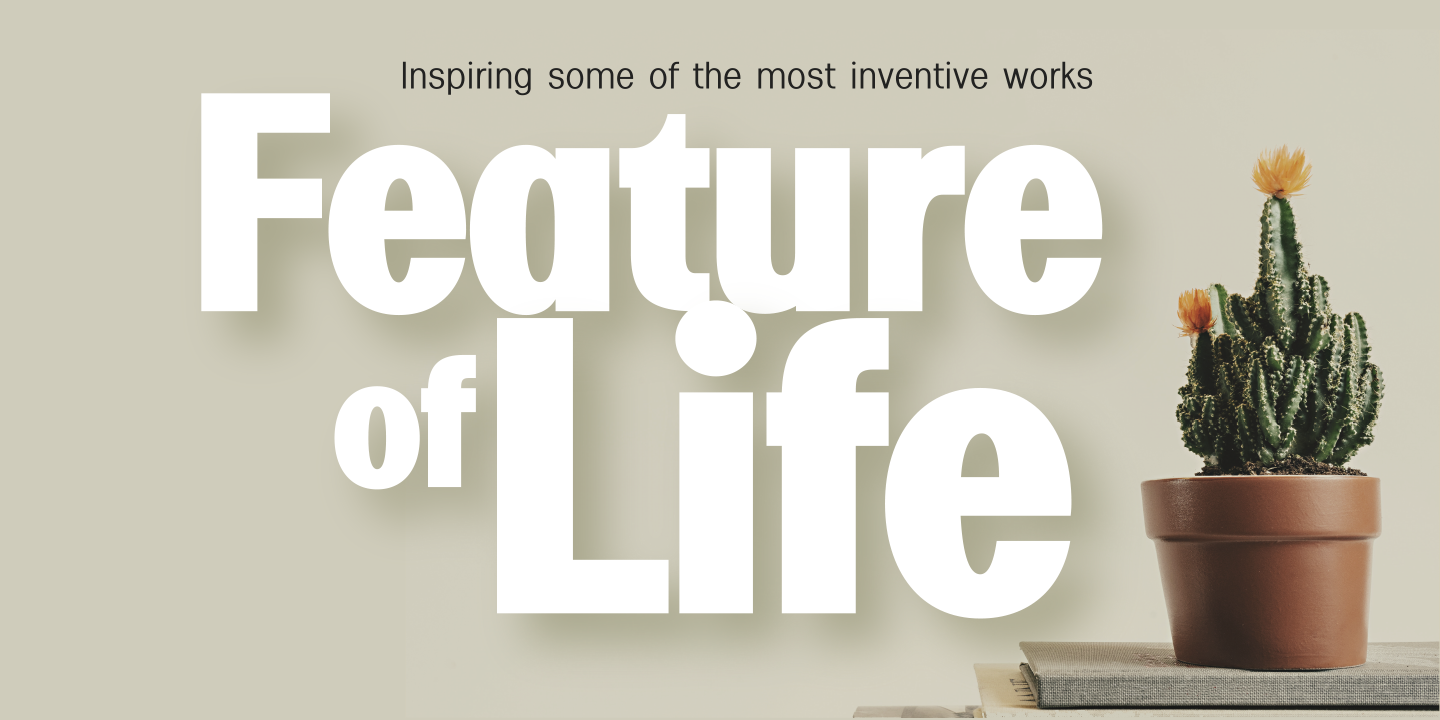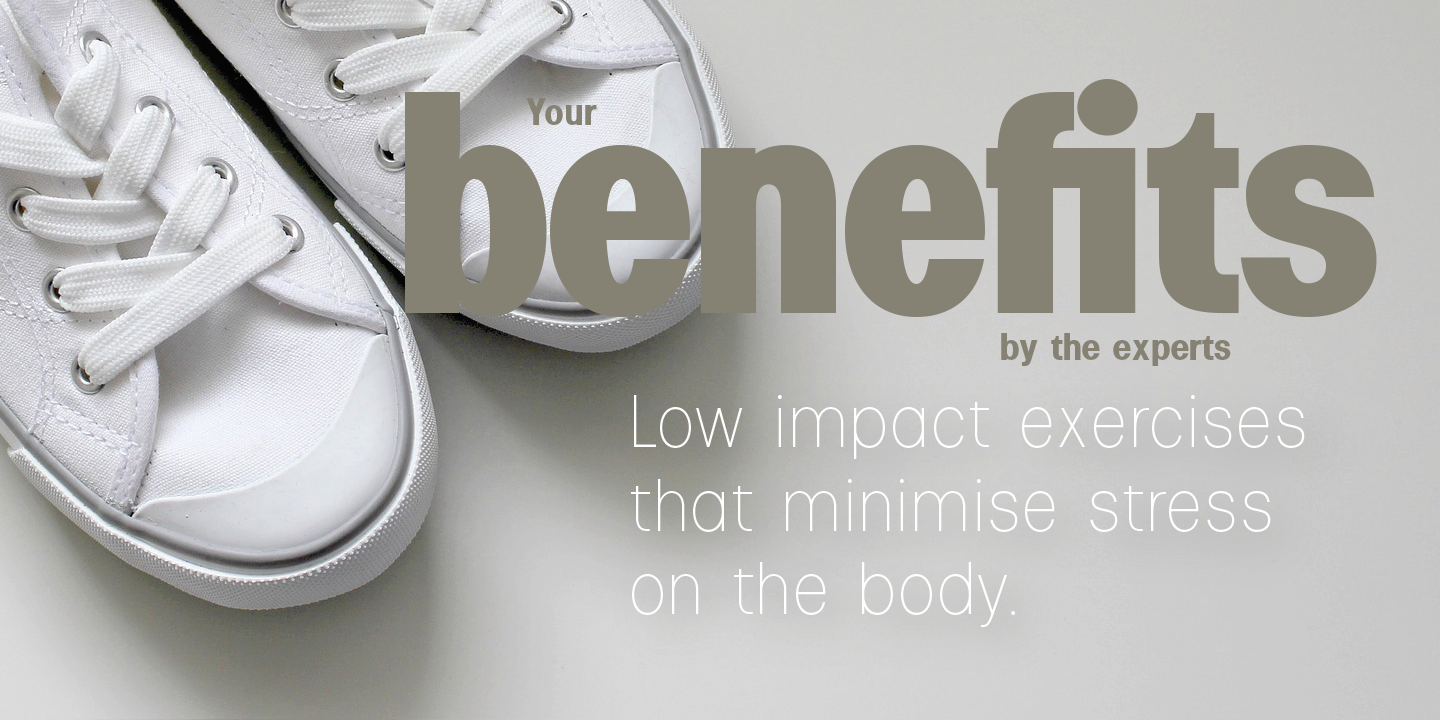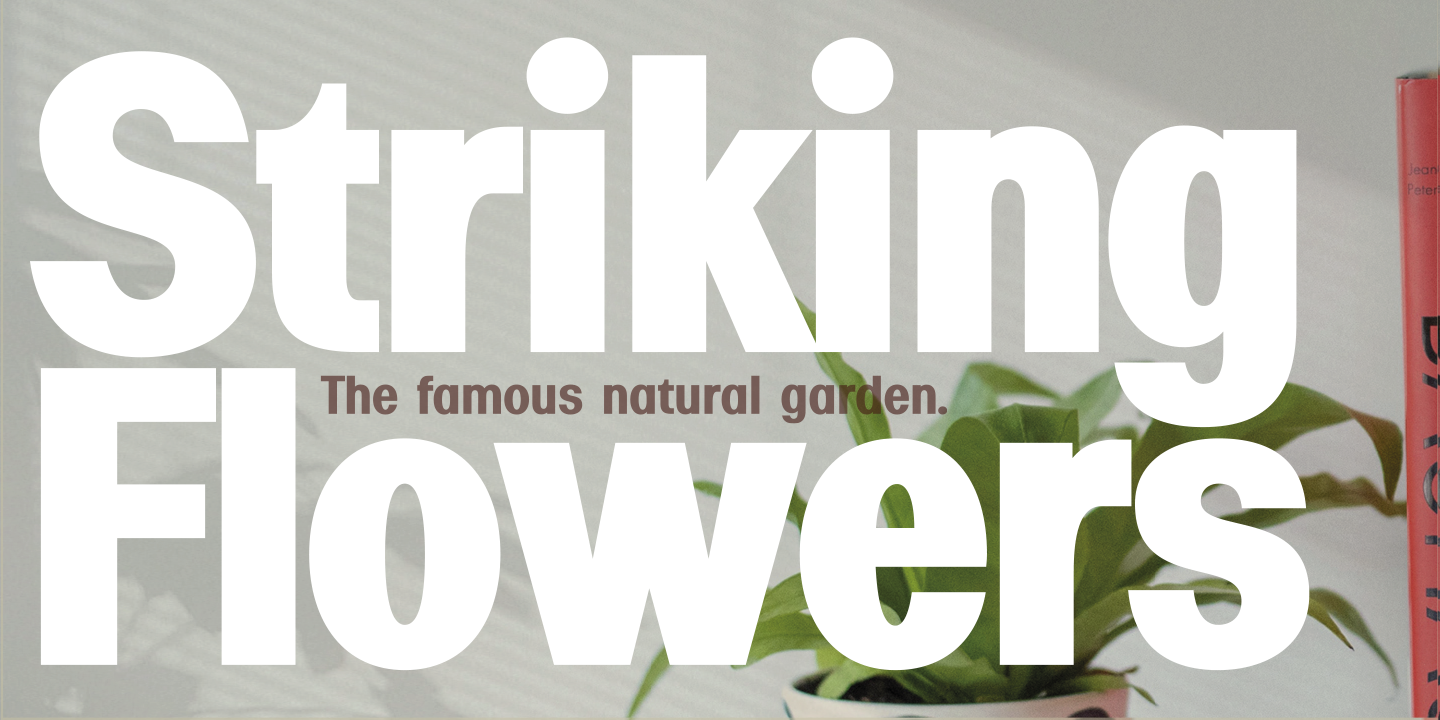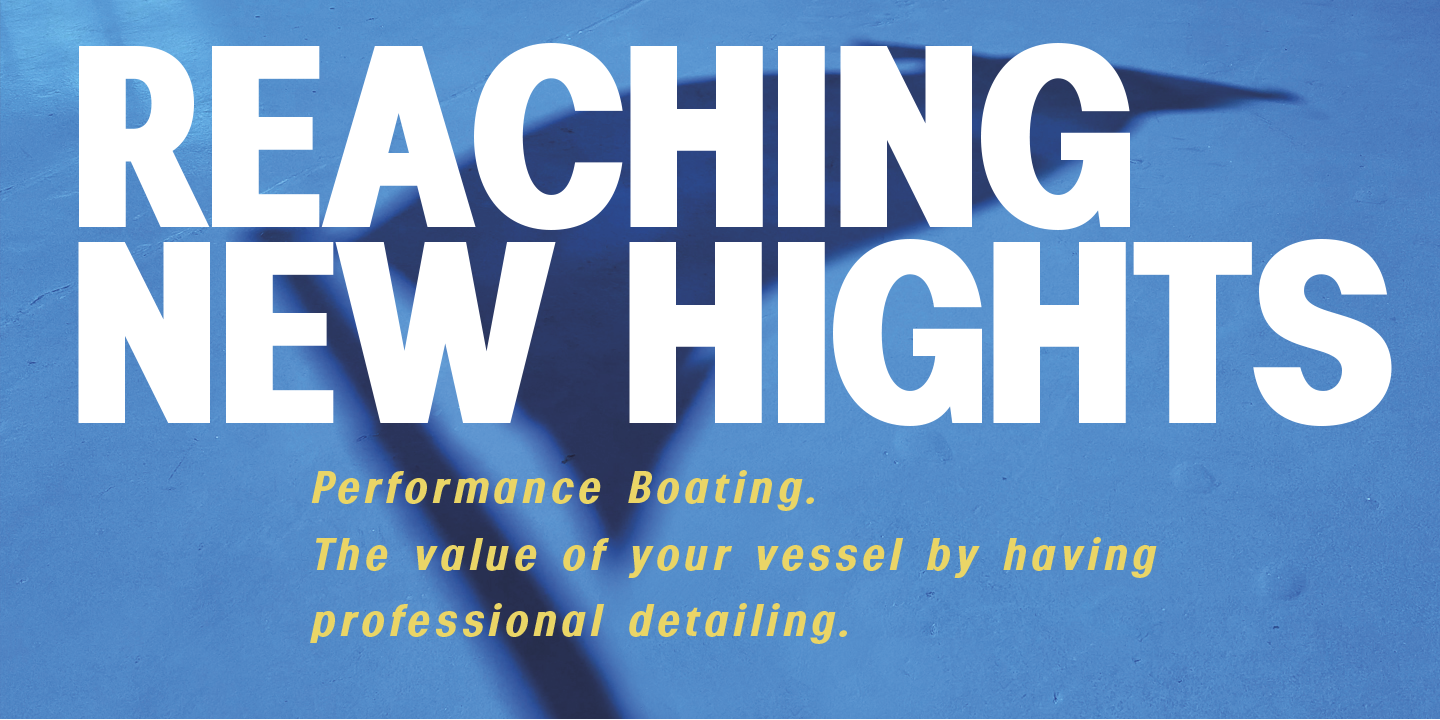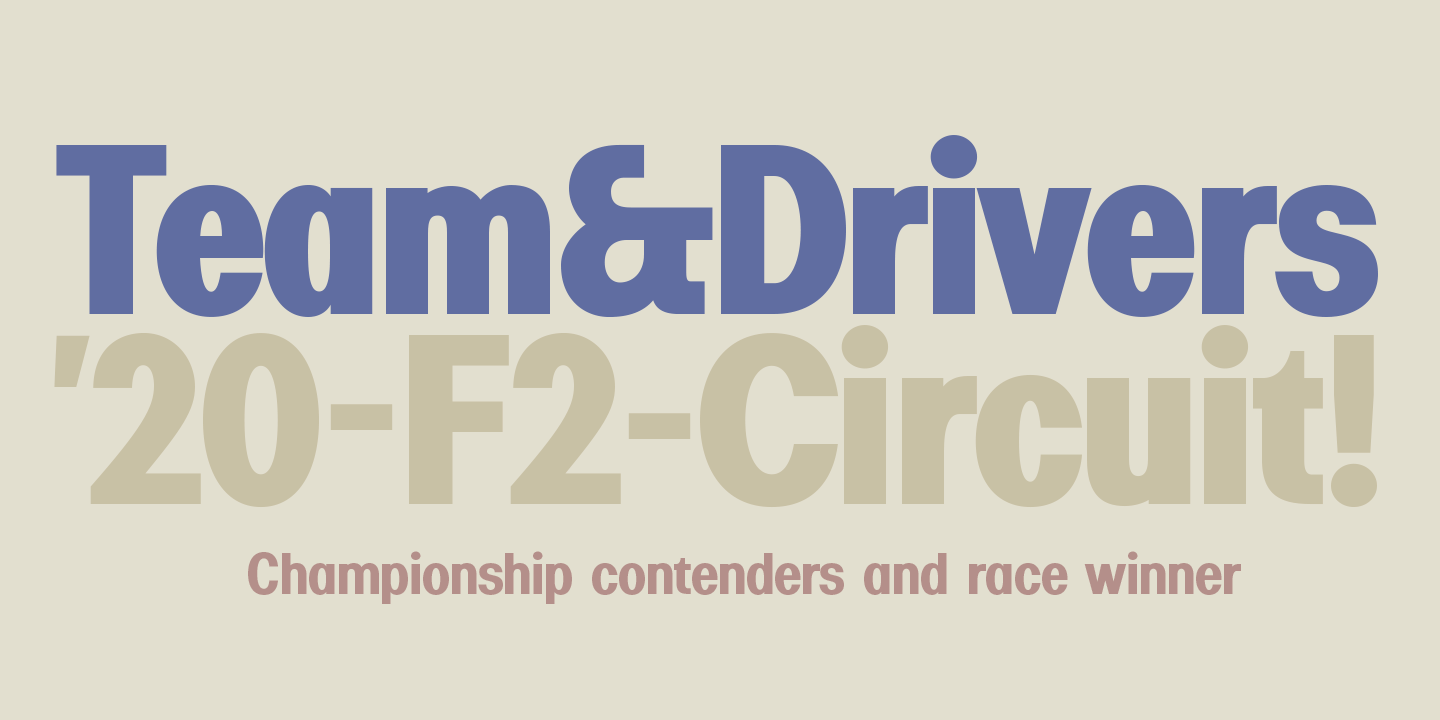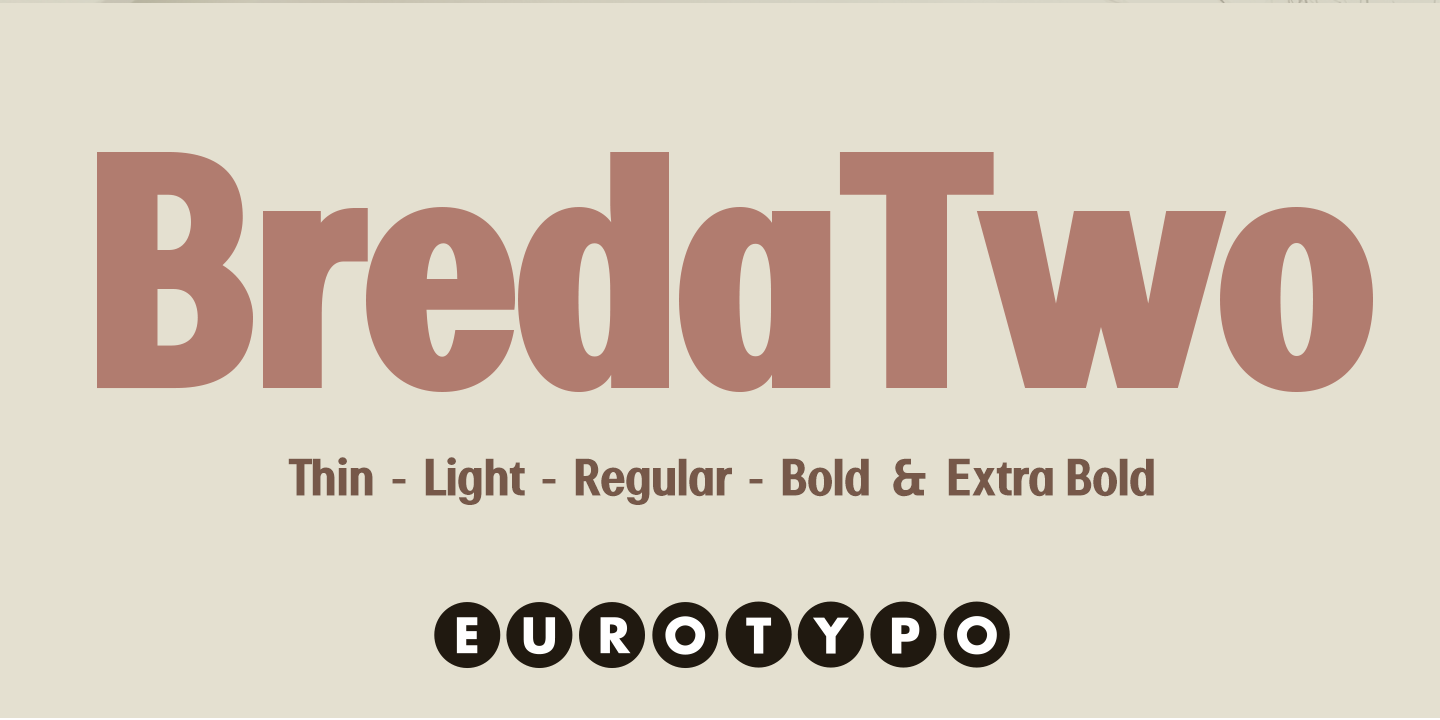
Breda Two
A Clean & Condensed Geometric Sans
Breda Two is a condensed sans-serif type family defined by its clean, functional, and modern aesthetic. Built from straight lines and primary shapes, it delivers a precise, disciplined look while maintaining excellent clarity.
Precision Engineering
Every detail—from legibility to finely tuned kerning—has been carefully crafted. The result is a typeface that performs flawlessly even in demanding spacing conditions.
Versatile for Signage & Branding
The Breda Two family is an ideal choice for body text, headlines, signage, magazines, websites, packaging, advertising, branding, and logotypes. It’s a versatile, contemporary typeface designed to elevate any project.
Global Language Support